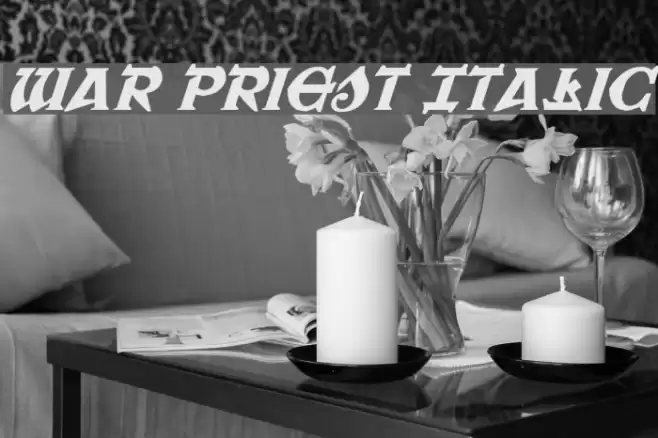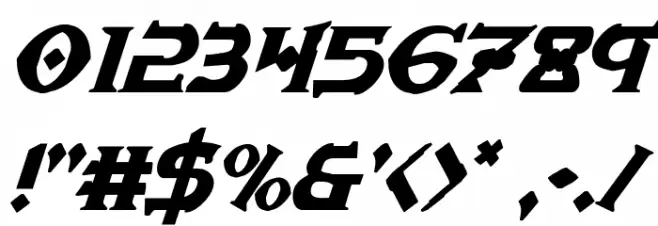
War Priest Italic Font
War Priest Italic Description
This font features a bold and dynamic style with sharp, angular lines and a distinct italic slant. The characters are heavily stylized, with exaggerated serifs and a strong presence, making it ideal for creating a dramatic impact. The uppercase and lowercase letters maintain a consistent design, with the lowercase mirroring the uppercase in style but with a slightly more compact form. Numbers and special characters are equally bold, ensuring uniformity across all text elements. The font's aggressive and medieval-inspired aesthetic makes it suitable for projects that require a strong, commanding visual presence.
A bold, italic font with sharp, angular lines and a medieval-inspired style from Uncategorized fonts.
- Proposed Projects: Ideal for use in fantasy-themed designs, video game titles, movie posters, and branding that requires a strong, dramatic impact.